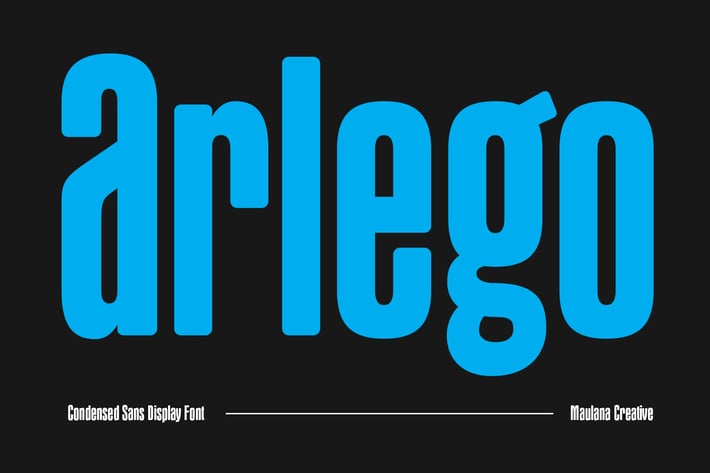
Arlego Condensed Sans Display Font
Arlego is a modern condensed sans serif Display font. Bold stroke, fun character with a bit of ligatures and alternates. To give you an extra creative work. Arlego font support multilingual more than 100+ language. This font is good for logo design, Social media, Movie Titles, Books Titles, a short text even a long text letter and good for your secondary text font with script or serif. Make a stunning work with Arlego font.